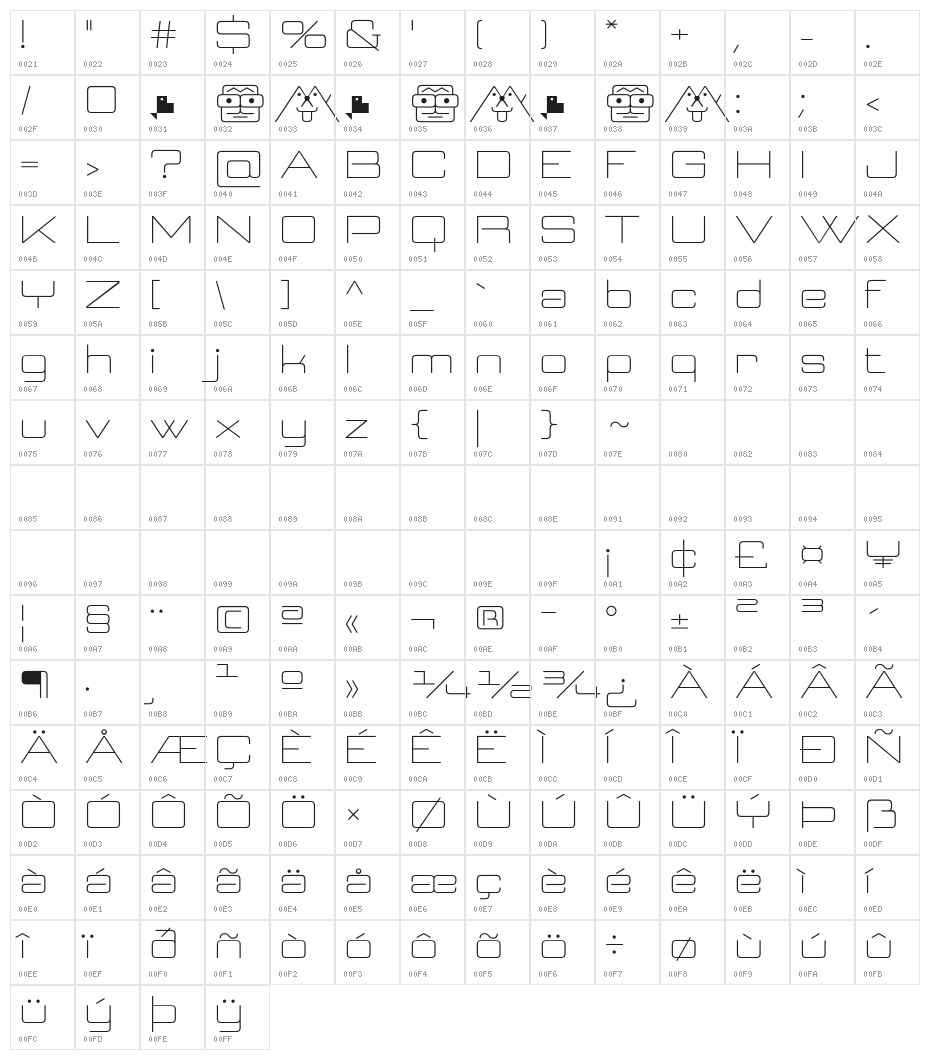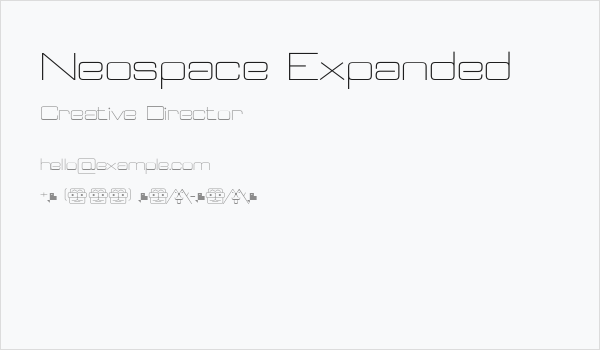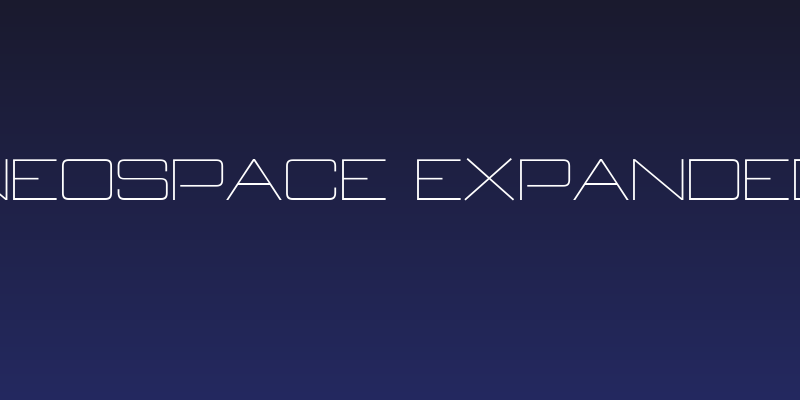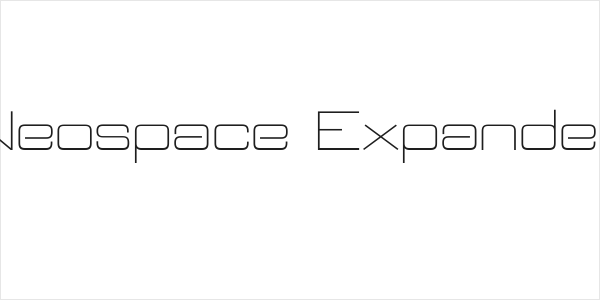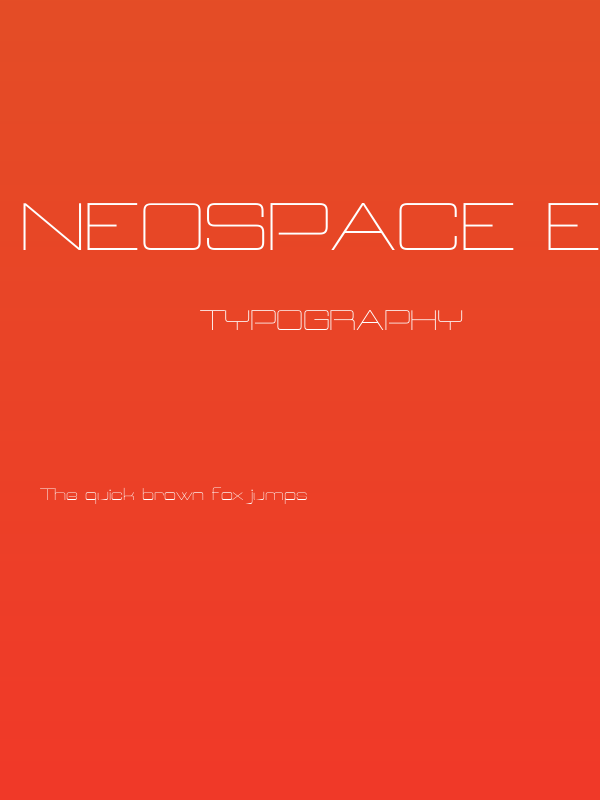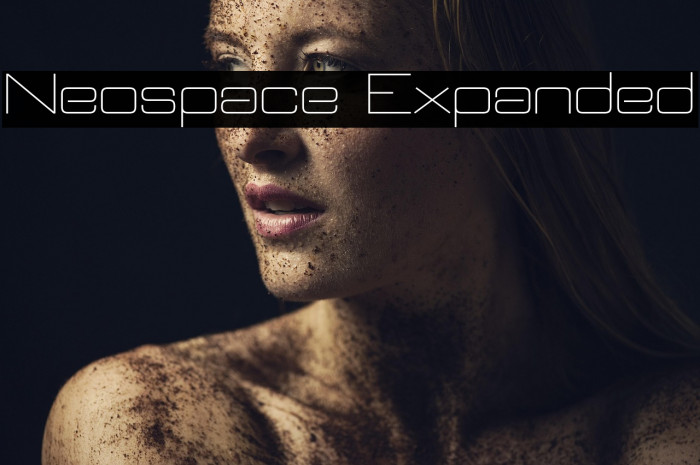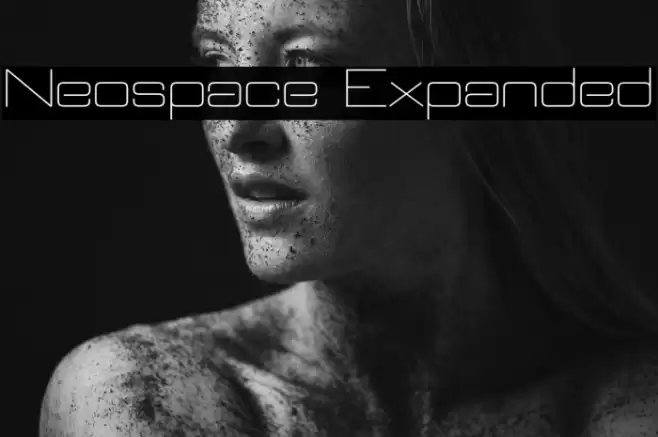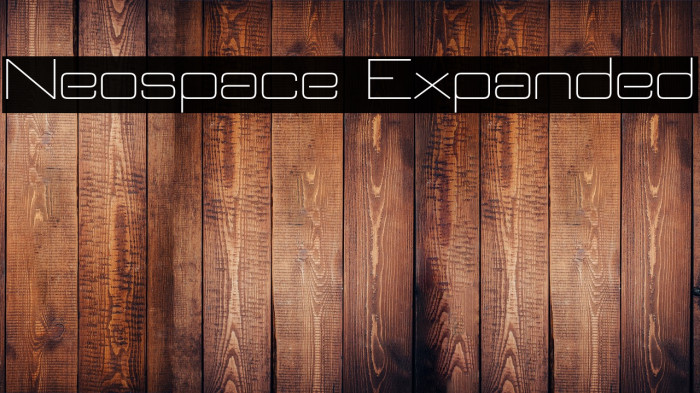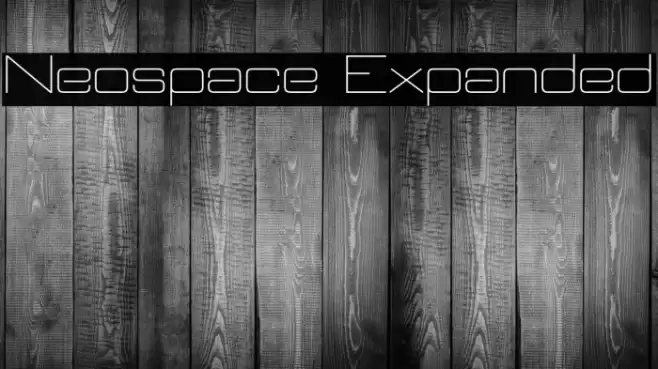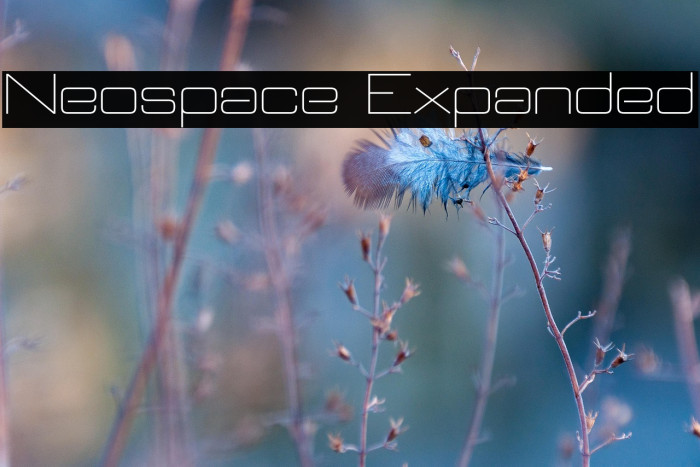
Neospace Expanded Font
Neospace is a layered font that allows you to create typographic titles in various colors, imitating the sophistication of futuristic electronic circuits. FULL VERSIONS & LICENSES: https://defharo.com/fonts/neospace/
| Cas d'utilisation | Headlines, Logos, Digital Interfaces |
| Projets proposés | Ideal for sci-fi themed projects, technology branding, modern posters, and digital interfaces. |